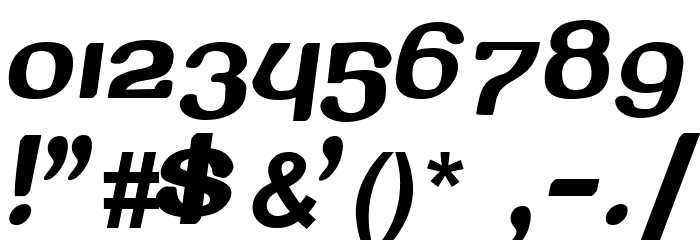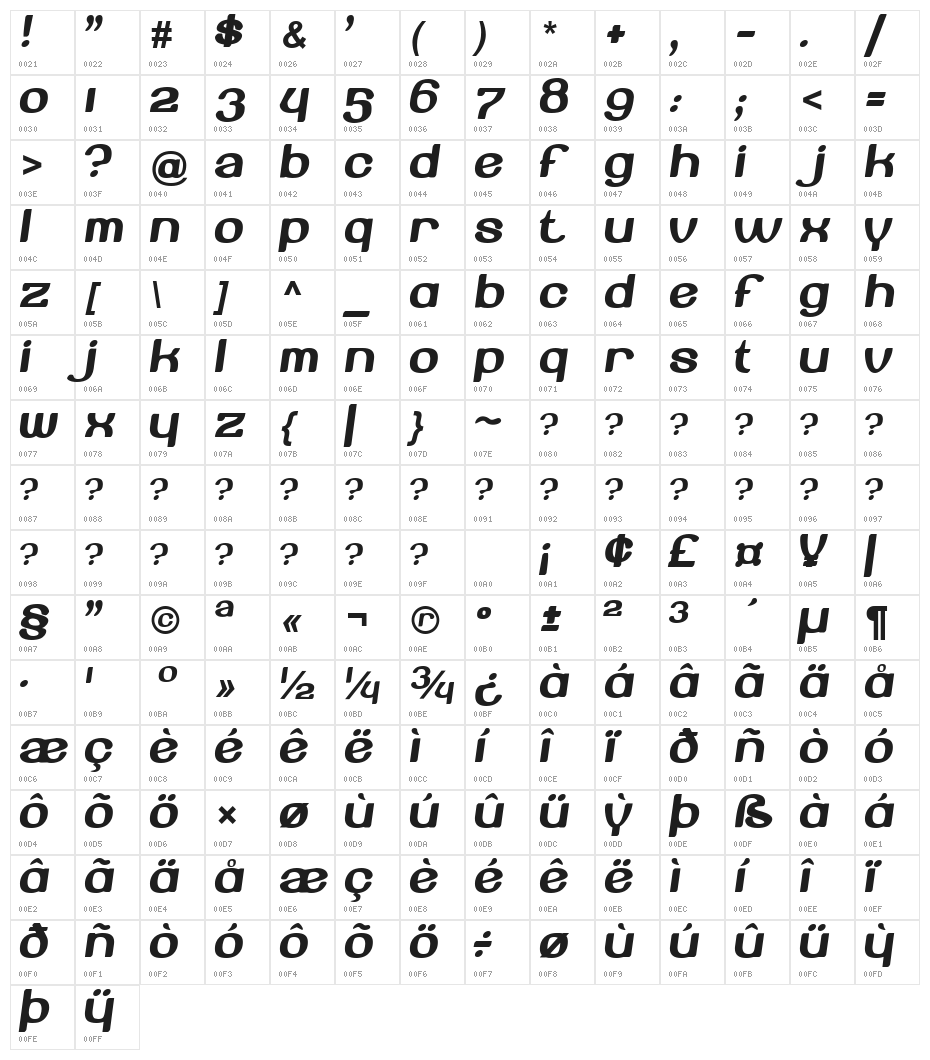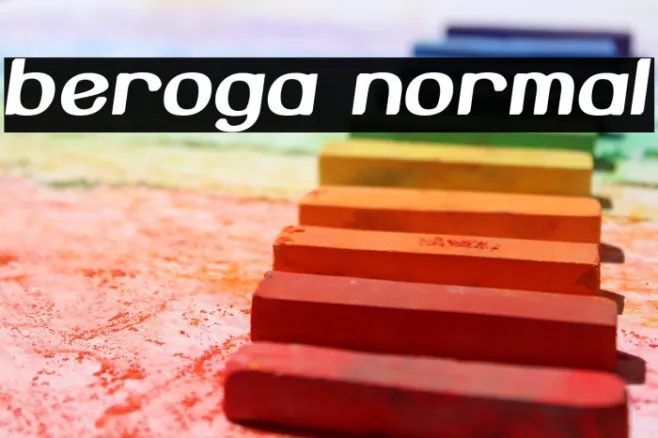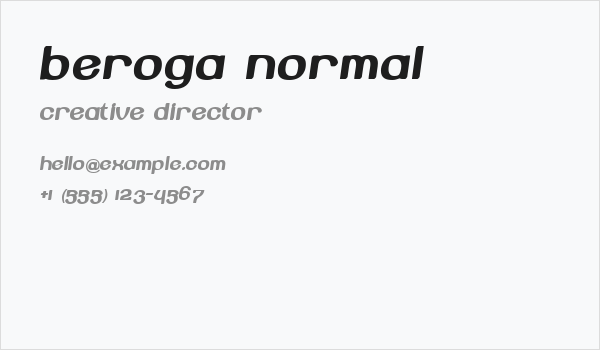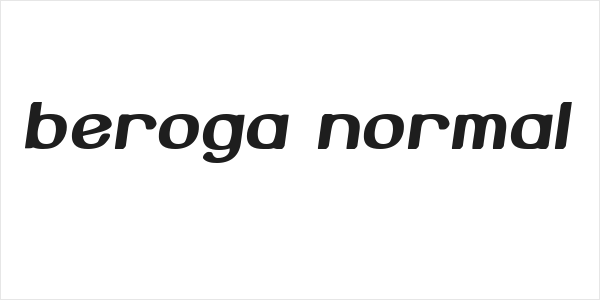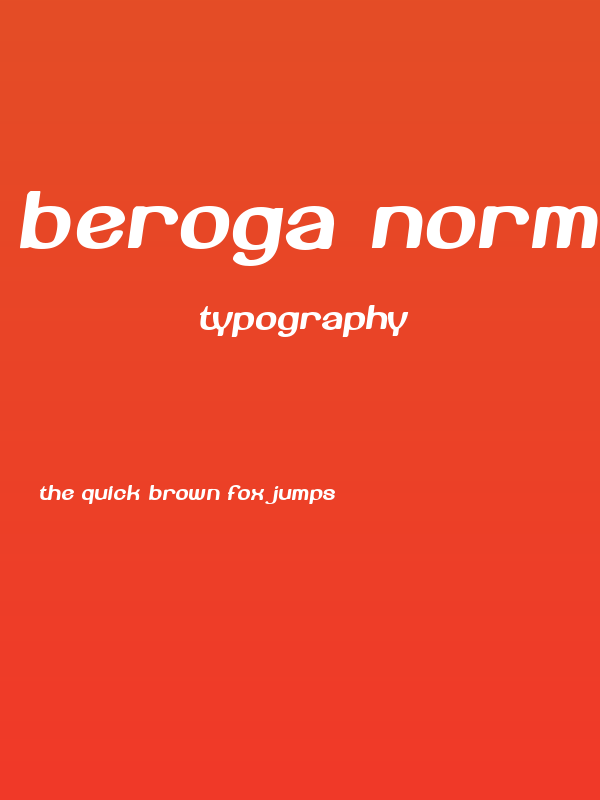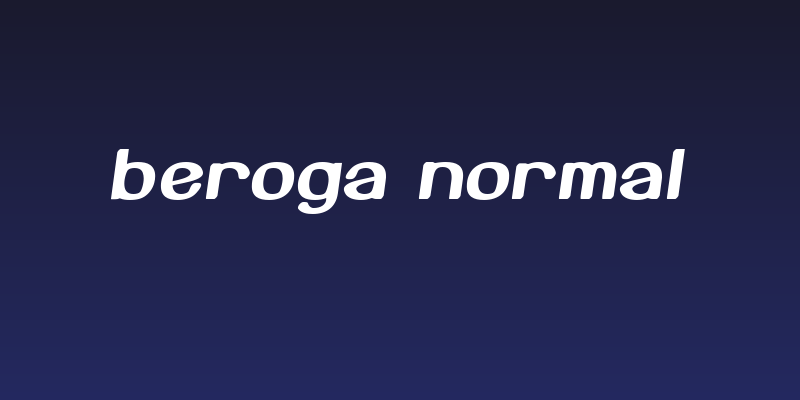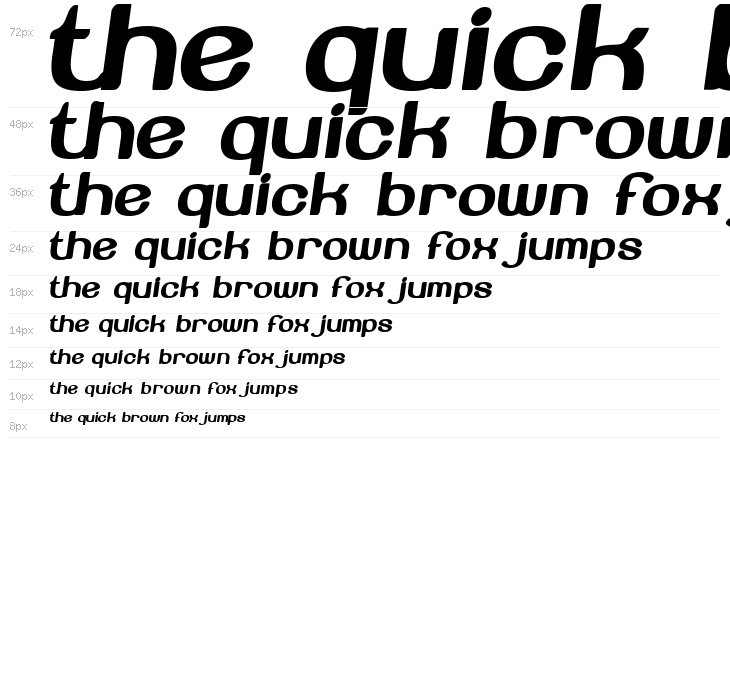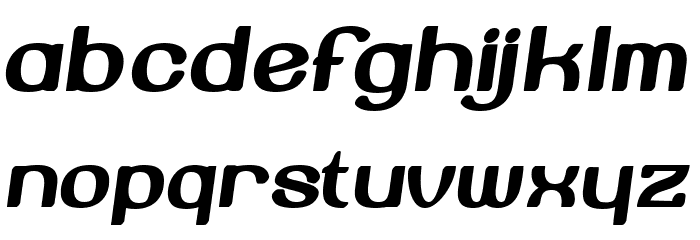
Beroga Normal Font
Beroga Normal Description
This font features a modern and sleek design with a slight italic slant, giving it a dynamic and forward-moving appearance. The characters are well-rounded with smooth curves and a consistent stroke width, providing a clean and polished look. The lowercase letters have a distinctive style, with some characters like 'a' and 'g' having unique, contemporary shapes. The numerals are bold and easily readable, making them suitable for various applications. The special characters are designed to match the overall aesthetic, ensuring cohesion across all glyphs. This font is versatile and can be used in both digital and print media.
| Use Case | Headlines, Logos, Digital media |
| Proposed Projects | Ideal for branding, advertising, digital media, and modern print designs. |